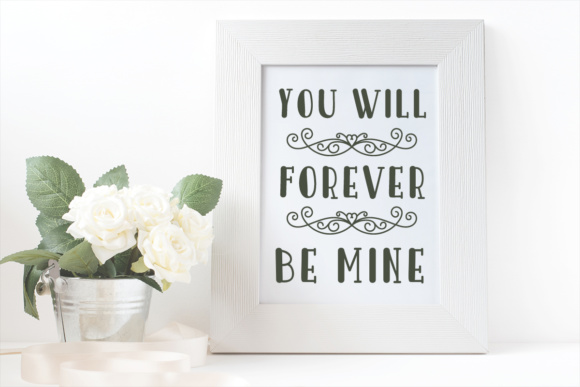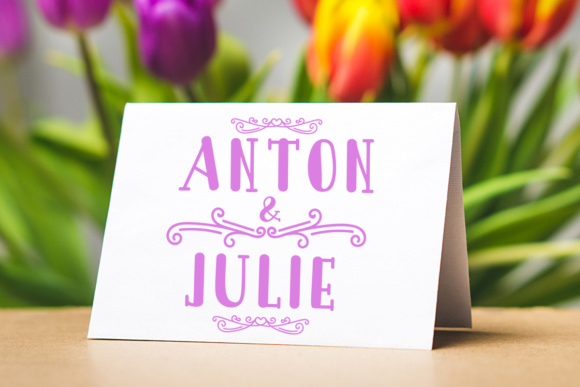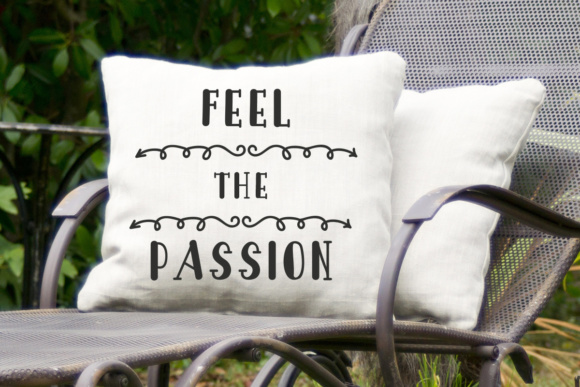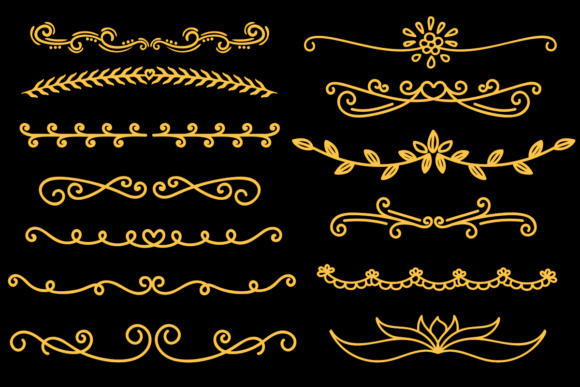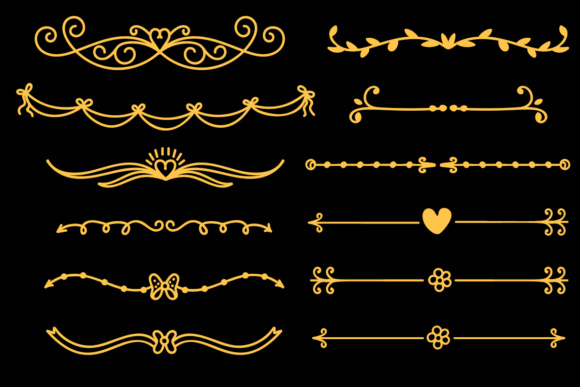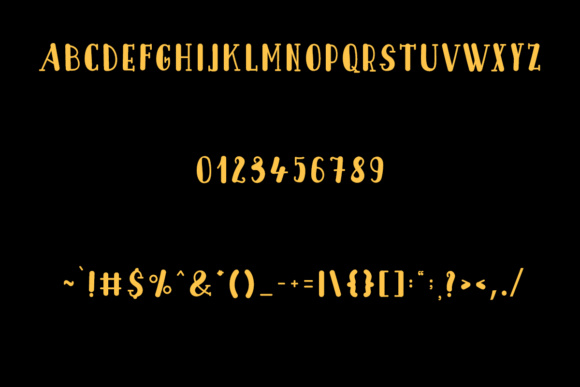
Introducing the Dividers Dingbat Font: Elevate Your Designs with Playful Embellishments
Are you a designer or crafter looking for a unique and creative way to add a personal touch to your projects? Look no further than the Dividers Dingbat font. This stylish font comes with 26 uppercase letters and 26 lowercase dingbats, making it the perfect addition to your design toolkit.
What is the Dividers Dingbat Font?
The Dividers Dingbat font is a specially designed font that combines functionality with aesthetics. Unlike traditional fonts, this dingbat font offers a range of decorative elements that can be used to enhance your designs. With its 26 uppercase and 26 lowercase letters, you can create visually appealing dividers, borders, and embellishments for your projects.
Key Features of the Dividers Dingbat Font
• 26 Stylish Uppercase Letters: Each uppercase letter is uniquely designed to add a touch of elegance and sophistication to your designs.
• 26 Lowercase Dingbats: The lowercase letters offer a range of playful and creative dingbats that can be used to add visual interest to your projects.
• Scalable: The font is scalable, allowing you to use it for a variety of projects, from business cards to billboards.
Uses of the Dividers Dingbat Font
The Dividers Dingbat font is versatile and can be used in a variety of design projects, including:
• Graphic Design: Use the font to create eye-catching posters, flyers, and brochures.
• Crafting: Add a personal touch to your scrapbooking, card making, and journaling projects.
• Web Design: Use the font to create visually appealing website headers, footers, and dividers.
• Social Media: Create engaging social media graphics and posts using the Dividers Dingbat font.
Tips for Using the Dividers Dingbat Font
Here are some tips for getting the most out of the Dividers Dingbat font:
• Experiment with Different Sizes: Play around with different font sizes to create visual interest and hierarchy in your designs.
• Combine with Other Fonts: Pair the Dividers Dingbat font with other fonts to create a unique and cohesive look.
• Use as a Background Element: Use the font as a background element to add texture and depth to your designs.
The Dividers Dingbat font is a valuable addition to any designer’s toolkit. With its 26 stylish uppercase letters and 26 lowercase dingbats, it’s the perfect font for adding playful embellishments to your design projects. Whether you’re a graphic designer, crafter, or social media enthusiast, this font is sure to elevate your designs and help you stand out from the crowd.